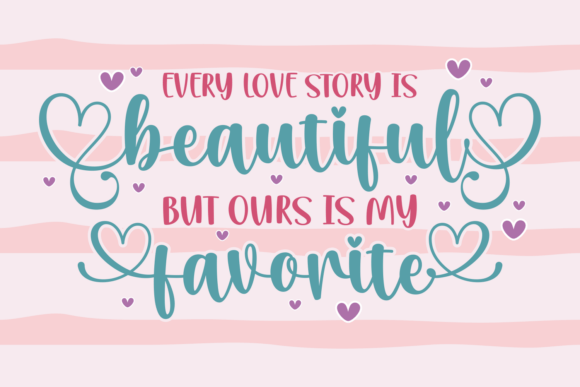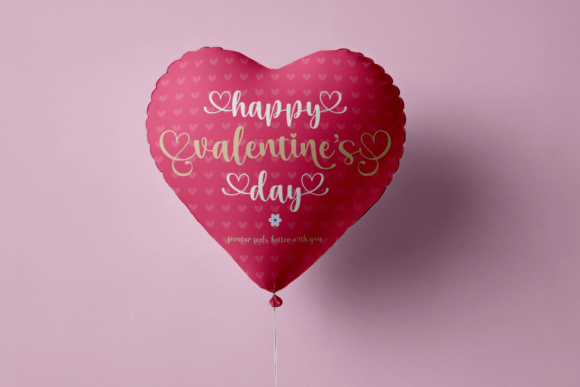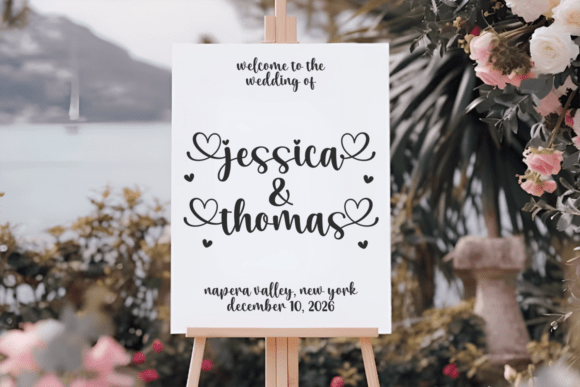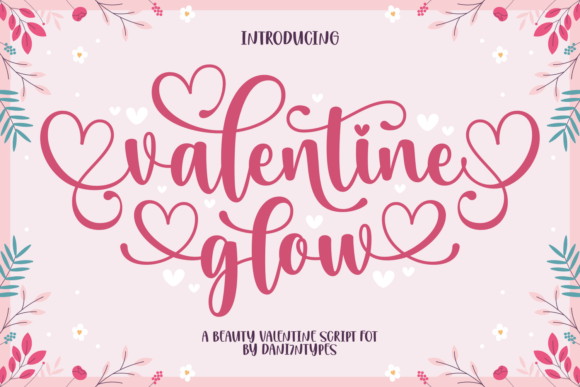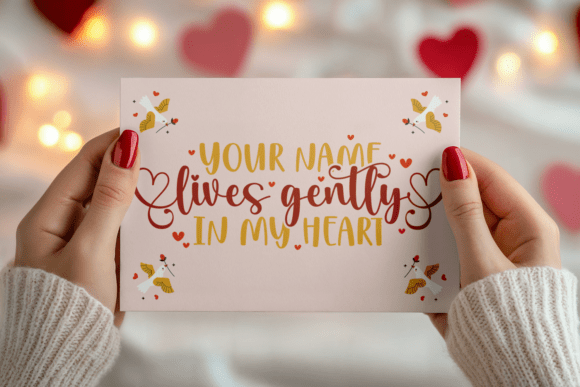
Valentine Glow is a charming and romantic script font designed to bring warmth, love, and sweetness into your creative projects. With its flowing strokes, heart-shaped swashes, and playful curves, this font beautifully captures the true spirit of Valentine’s Day while remaining versatile enough for everyday romantic designs.
Each letter is carefully crafted to create smooth connections and elegant typography that feels both joyful and refined. The soft curves and decorative heart details give Valentine Glow its signature personality—romantic, friendly, and instantly eye-catching.
Perfect for Romantic and Creative Designs
Valentine Glow is ideal for a wide range of creative uses, including:
Valentine’s Day cards and love notes
Wedding invitations and save-the-date designs
Romantic quotes and typography art
Branding, logos, and packaging
Social media posts and digital content
Posters, stickers, apparel, and printables
Whether you’re a professional designer or a creative entrepreneur, this script font adds a heartfelt and loving touch that helps your designs stand out.
Easy to Use and Beautifully Readable
Despite its decorative style, Valentine Glow remains easy to read and simple to use. The smooth letter connections and balanced spacing make it suitable for both short phrases and longer texts. It’s a perfect choice for designers who want romantic typography without sacrificing clarity or usability.
Visual Style
The preview image showcases Valentine Glow in a soft pink color palette with delicate floral accents and heart motifs. The elegant lettering, combined with subtle decorative elements, perfectly reflects the font’s romantic mood and Valentine-inspired charm.